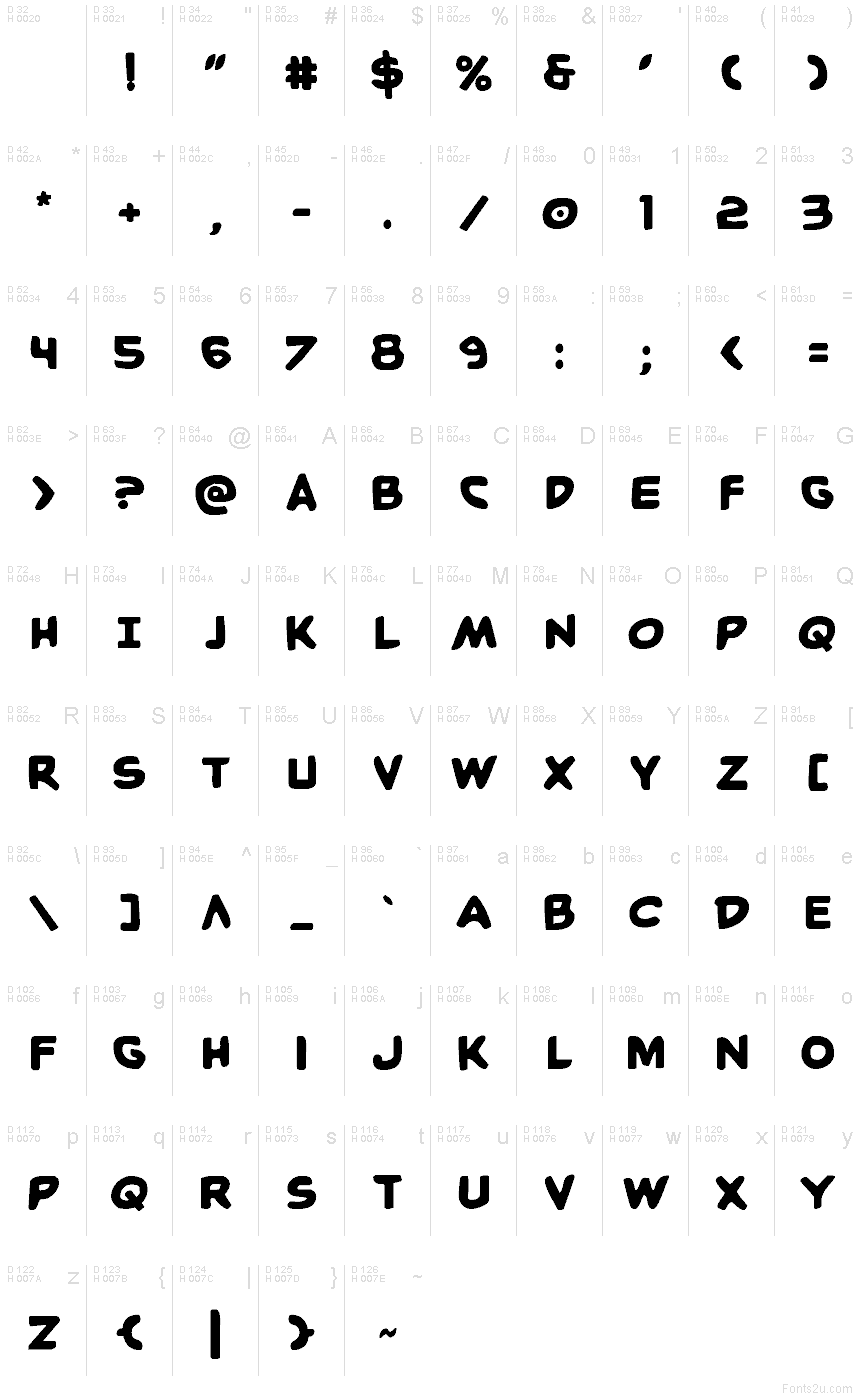
Caped Crusader
Caped Crusader font is a free display font from Iconian Fonts that makes a bold statement in comic-oriented designs. This retro-inspired typeface mixes geometric elements to deliver strong character forms and visual impact as a whole. It can work beautifully as a headline option, especially with its thick letters and constant width.
Vibrant, charismatic presence makes it perfect for children’s book covers, magazines, posters, t-shirts, video games, logos, cartoons, comics and several other applications.